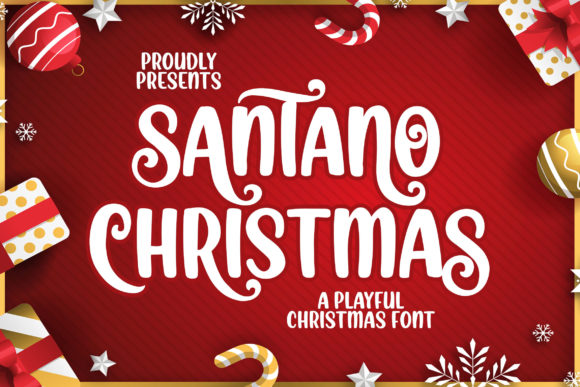
Introducing Santano Christmas Font, the ultimate choice for all your festive design needs! Created by Blankids Studio, this cool and distinct display font is guaranteed to bring a touch of luxury and sparkle to any project.
With its unique feature of characters dancing along the baseline, Santano Christmas Font is the perfect choice for creating eye-catching movie posters. Its captivating design will effortlessly grab the attention of viewers, making it the best font for movie posters.
But Santano Christmas Font is not limited to just movie posters. Its versatility allows you to use it in a wide range of design projects, from greeting cards to social media graphics, holiday-themed advertisements, and so much more.
What sets Santano Christmas Font apart is its PUA encoding, which grants you easy access to all the glyphs and swashes. This means you can effortlessly enhance your designs with intricate details and stunning embellishments, adding that extra touch of magic to your creations.
Imagine the excitement and joy that Santano Christmas Font will bring to your audience. Its festive vibe and elegant style will invoke a sense of celebration and create a lasting impression.
Capture the spirit of the holiday season with Santano Christmas Font and watch as your designs come to life with a touch of luxury and enchantment. Let the characters of this font dance gracefully on your projects, spreading the holiday cheer and capturing the attention of anyone who lays eyes on them.